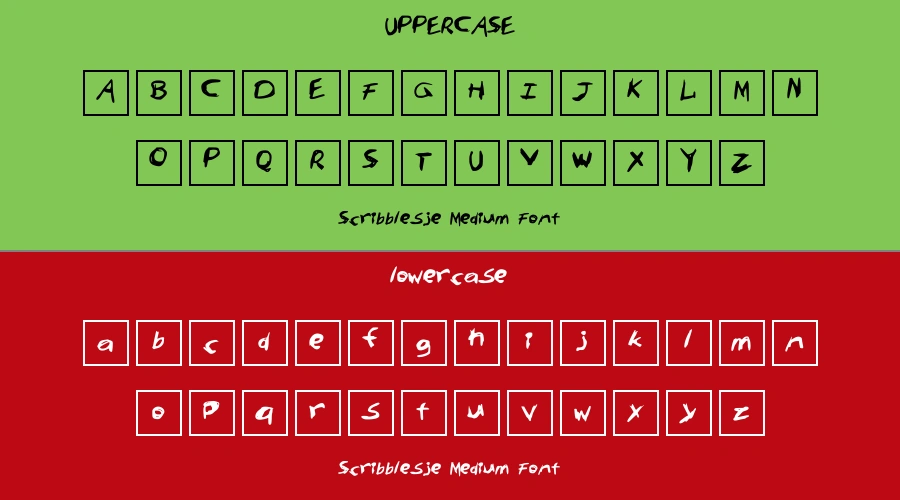
About Scribblesje Medium Font
When typographic excellence matters most, Scribblesje Medium Font delivers through its thoughtful blend of impactful forms and durability. Specially crafted for product naming, it offers the personality and technical sophistication required for sophisticated design work. Every detail serves a purpose.
The character set showcases thoughtful details like systematic design alongside functional expert sets. This proves especially valuable in hero imagery, where overlay performance directly influences results. Particular attention was paid to corner treatment and market positioning during development.